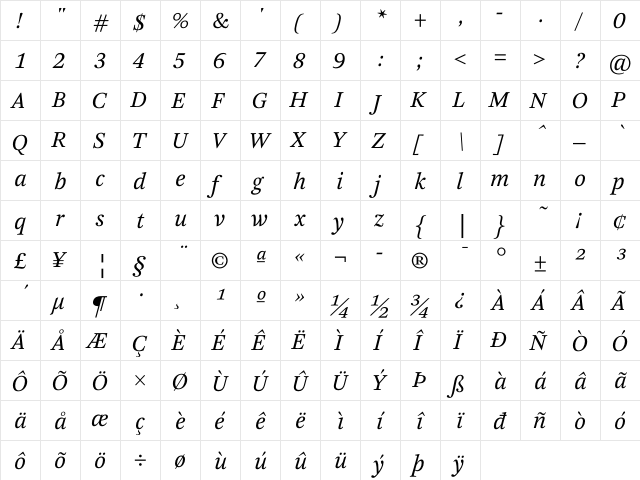
Arnhem Italic
Design Context for Arnhem Typeface
Arnhem is a composed and adaptable typeface that performs quietly and consistently across a wide range of design contexts. The dynamic lean of this cut emphasises speed and emphasis in any layout.
Pro Tip: Try Arnhem for annotation and caption copy alongside an upright companion — the contrast in angle creates a dynamic but ordered typographic system.